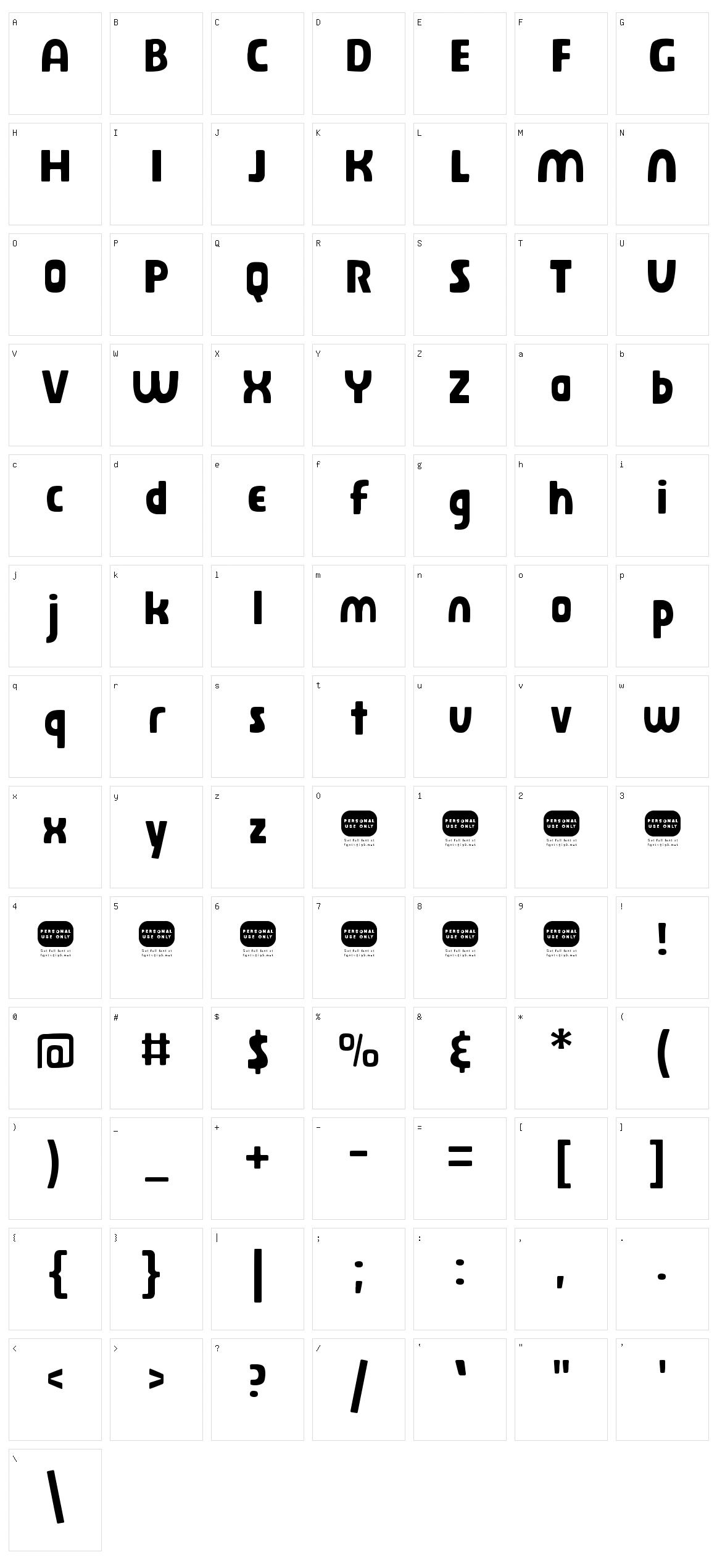
The free font Osen is carefully designed by FG Studios, showcasing a thoughtful balance of creativity and usability and falls under the Cartoon font style. When you download the ZIP file, it contains only 40.24 KB of font files, making it lightweight and quick to download. Please review the license details below to understand permitted usage and distribution rights. If license information is not available, we recommend using this font for personal projects only or contacting the author directly for commercial usage permissions.